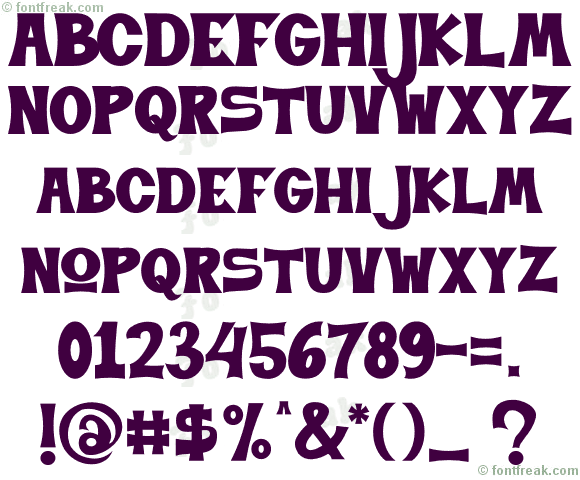
BUDDY HOLLY
About BUDDY HOLLY
The BUDDY HOLLY font by MaknaStudio is a striking display typeface that beautifully captures a retro vibe, reminiscent of mid-century Americana. This font is characterized by its bold, thick strokes and minimal contrast, giving it a sturdy yet playful appearance. The letters feature rounded edges and a slightly condensed structure, which contributes to a friendly and inviting aesthetic. The spacing is well-balanced, allowing for easy readability while maintaining a cohesive look that makes it perfect for various design applications.
Ideal for a range of creative projects, the BUDDY HOLLY font excels in areas such as event branding, particularly for music festivals and retro-themed parties. It can also be effectively used for restaurant menus, where its playful nature can attract diners. Additionally, this font works wonderfully for merchandise designs, such as t-shirts and posters, adding a unique flair to products. Graphic designers and content creators will find this font especially appealing for social media graphics that require a bold statement.
What sets the BUDDY HOLLY font apart is its ability to evoke nostalgia while remaining versatile enough for modern applications. Its distinctive character makes it a memorable choice for any project that aims to capture attention and convey a sense of fun and creativity. Whether you're designing a flyer or creating a logo, the BUDDY HOLLY font adds a unique touch that stands out in a crowded marketplace.